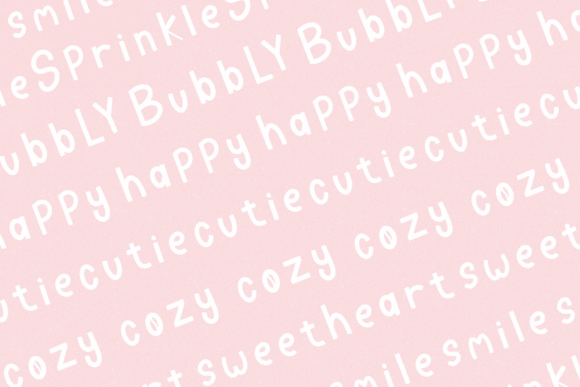
Introduction to Loopy Lop Font
Meet Loopy Lop, a delightfully eccentric handwritten font that dances with effervescent vitality and looping contours.
👤 Author dmletter31
This distinctive typeface is meticulously fashioned for imaginative individuals, artisans, and designers, imparting a fanciful touch to every undertaking Whether it is creating for children, branding a charming boutique, or infusing charm into social media graphics, Loopy Lop adorns each project with a unique sparkle.
Key Features of Loopy Lop Font
Why Choose Loopy Lop Font?
Loopy Lop Font offers exceptional quality and versatility, making it a valuable addition to your design toolkit. Whether you’re creating for personal projects or commercial use, Loopy Lop Font delivers professional results.